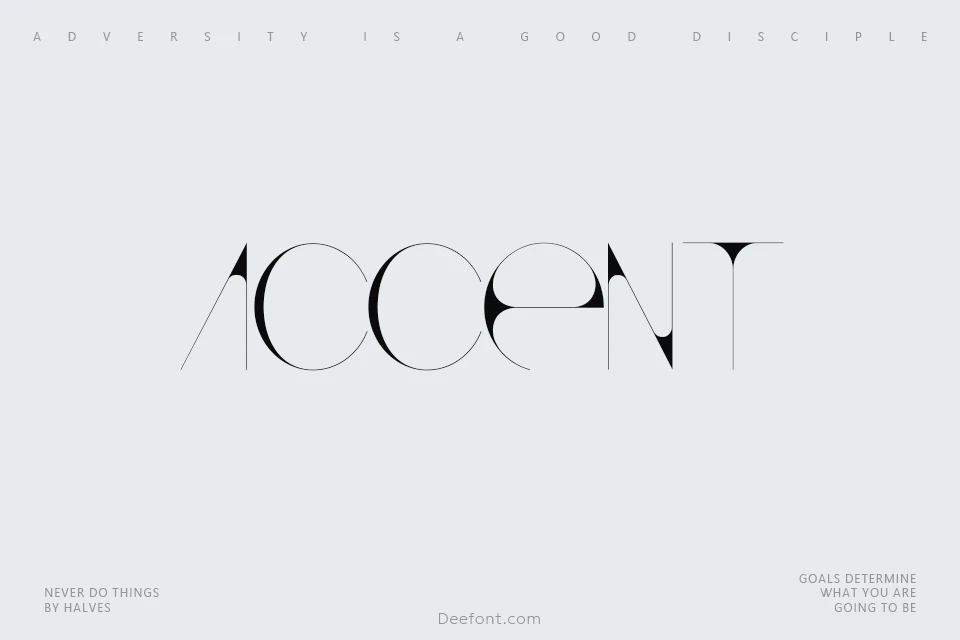
Accent Font
Accent Font is a sleek and modern typeface designed to make a bold statement. Its elegant curves and sharp edges create a striking visual balance, making it perfect for headlines, logos, and artistic projects. With its unique design, the font emphasizes style and sophistication while maintaining readability. It includes a full set of uppercase and lowercase characters, numerals, and punctuation, offering versatility for creative applications. The Accent Font is ideal for branding, editorial design, and any project that requires a touch of contemporary flair. Its minimalist yet impactful aesthetic ensures it stands out in any visual composition.